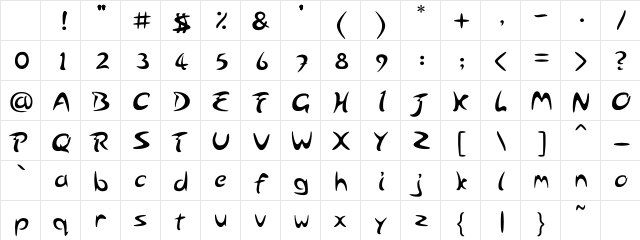
Complete Arabolical 1 glyph index. Displaying only characters natively supported by Arabolical 1 font.
Arabolical is a composed and adaptable typeface that performs quietly and consistently across a wide range of design contexts.